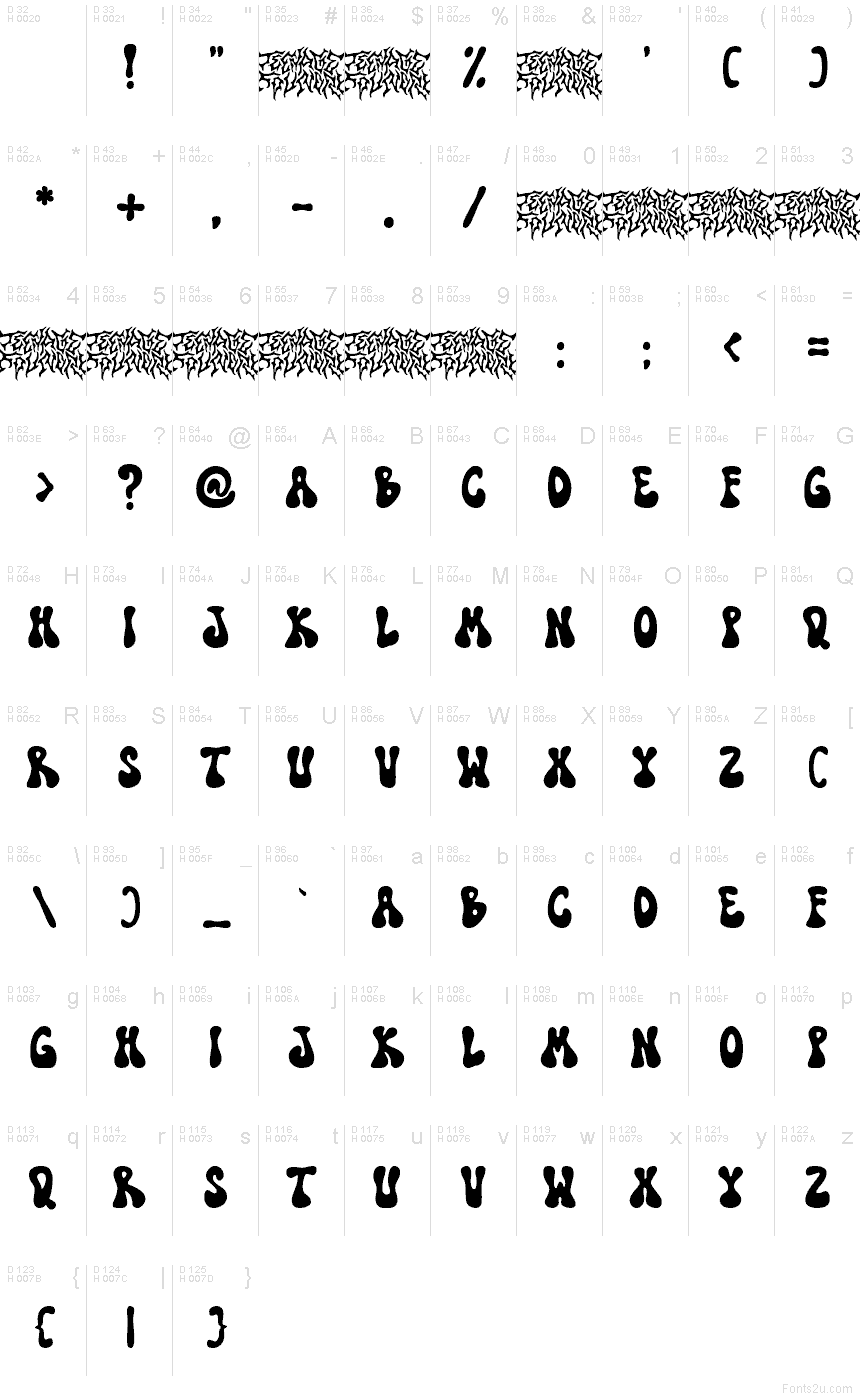
TF Funky Fusion Demo
TF Funky Fusion font by Teenage Foundry is a free groovy display typeface. Its letters swell and pinch like lava-lamp blobs, creating a wavy rhythm that feels hand-poured rather than drawn. The chunky silhouettes lock together tightly, giving headlines a bold, dancing mass that reads loud and joyfully even from a distance.
Using TF Funky Fusion, you’ll add bounce to festival posters, album covers, vintage-inspired packaging, streetwear logos, event flyers, and playful stickers. This free font shines when you go big and give it room to breathe; keep body text in a simple, narrow sans to let the bubbly forms take center stage.